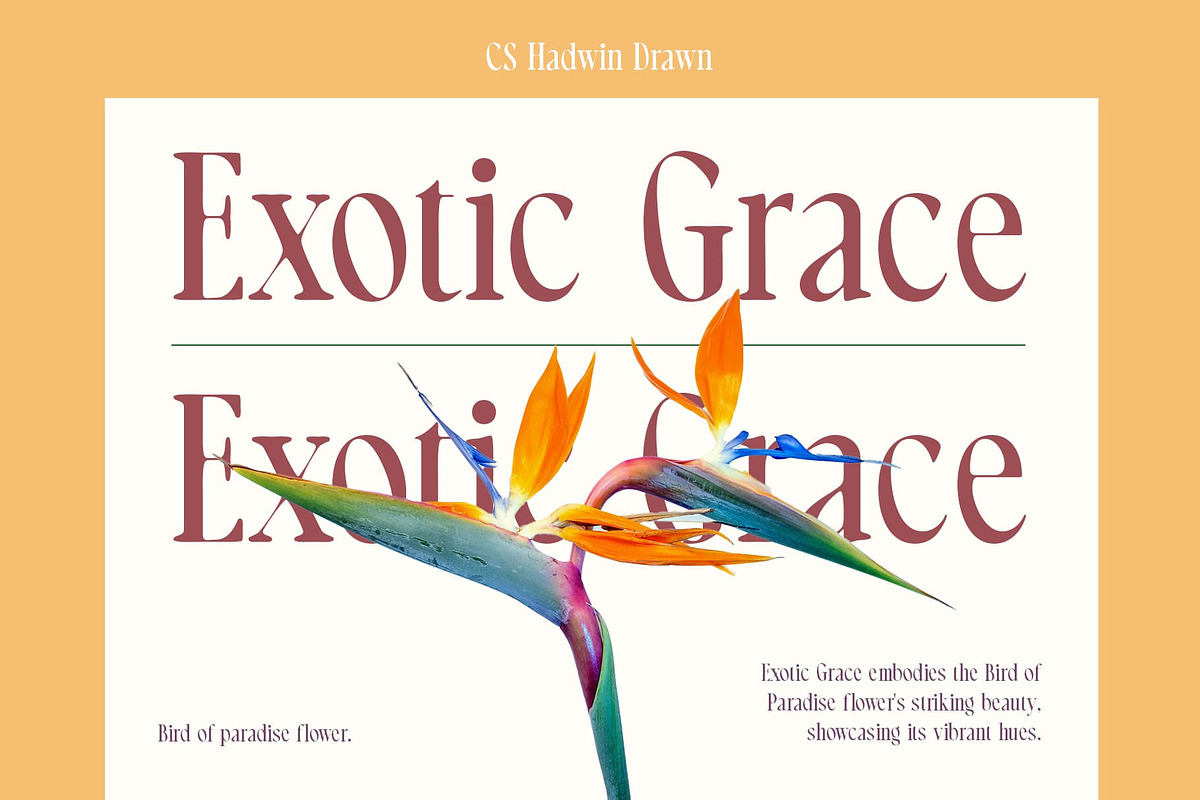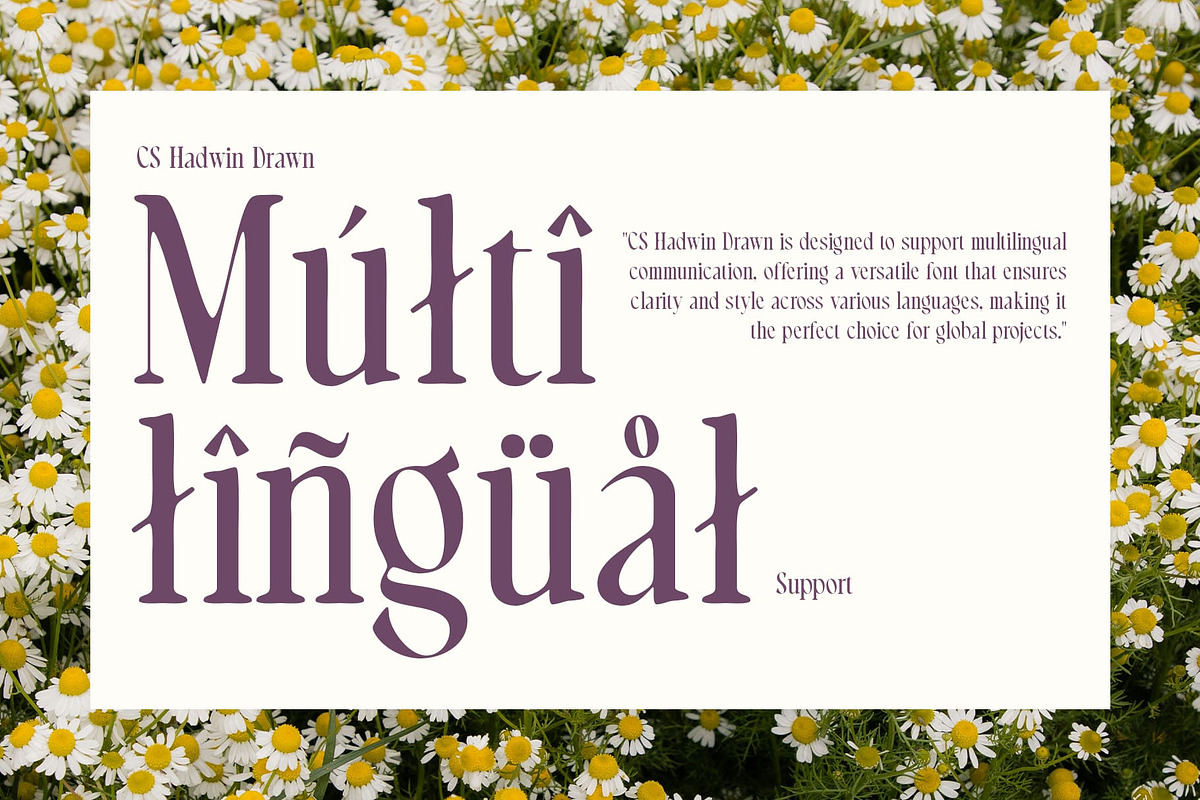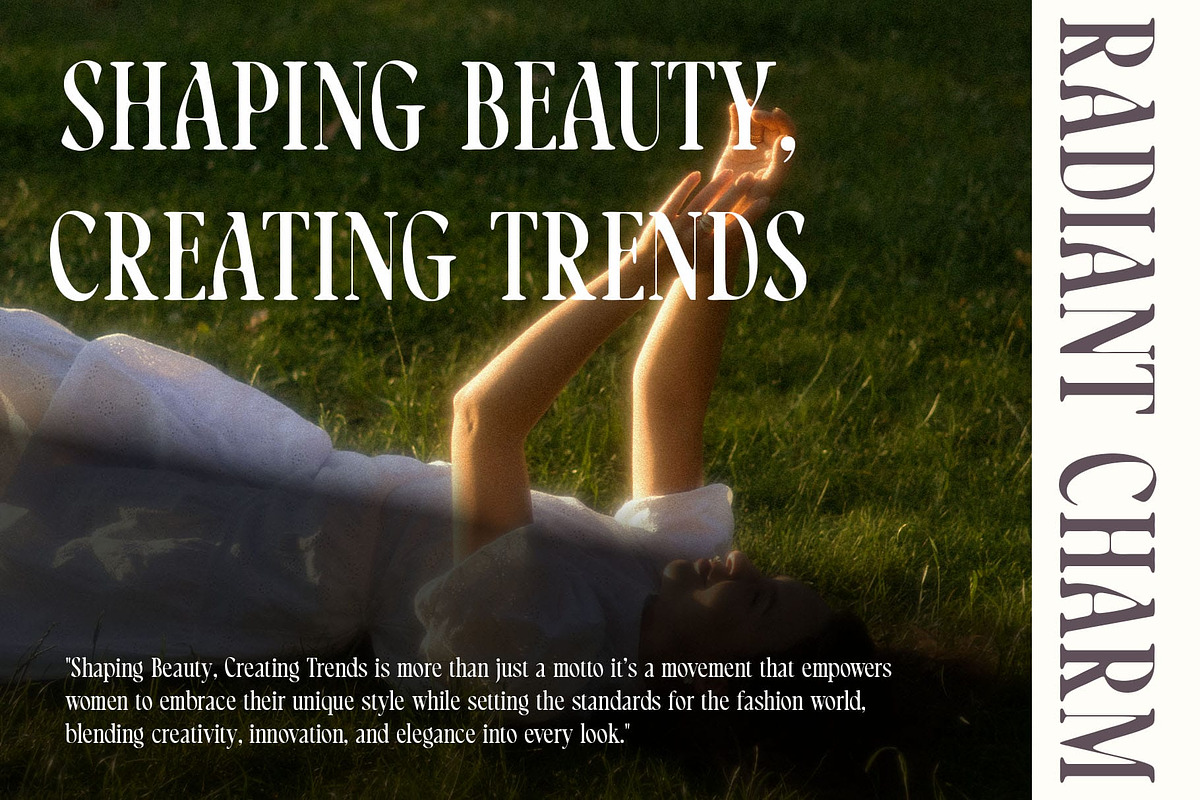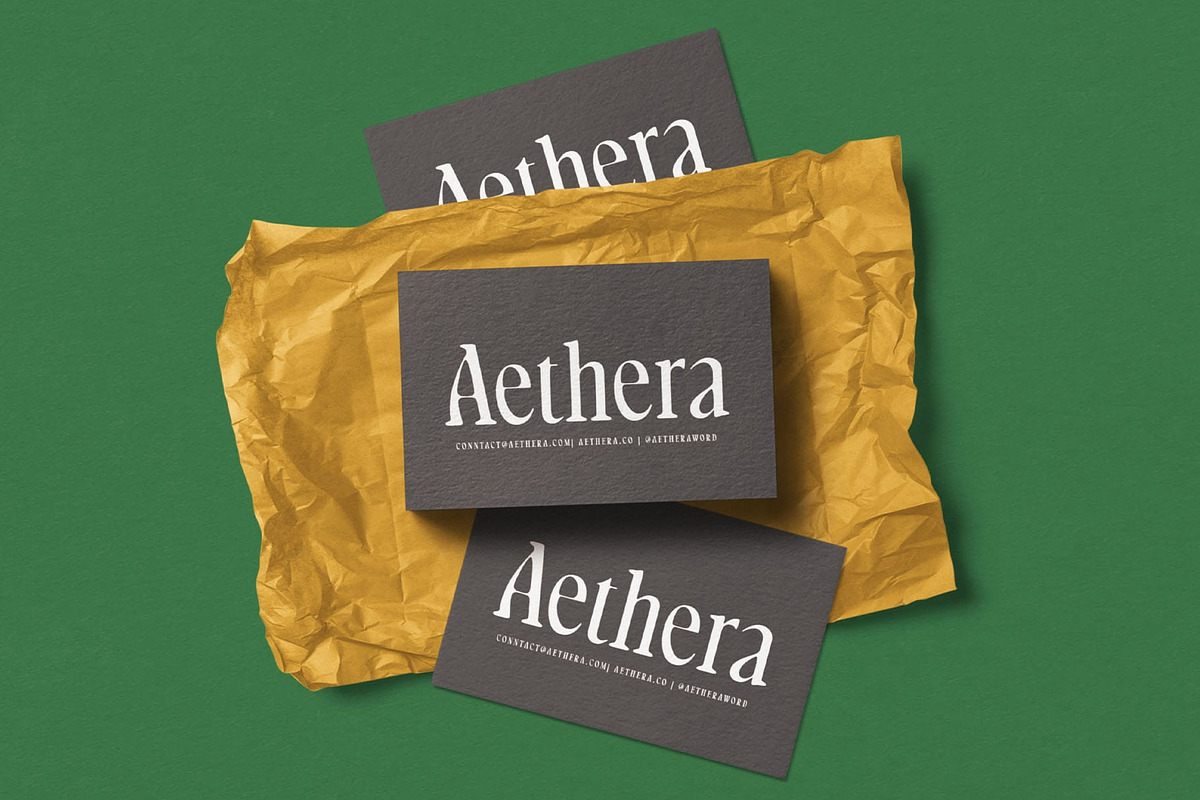
CS Hadwin Drawn
CS Hadwin Drawn – Elegant Hand-Drawn Serif Font
Timeless Elegance Meets Artistic Craftsmanship CS Hadwin Drawn is a classic serif font that beautifully merges traditional elegance with a unique, hand-drawn effect. Its refined letterforms exude sophistication and grace, while the hand-drawn details introduce a touch of artistry and individuality. This perfect blend of refinement and creativity makes it an ideal choice for upscale branding, formal invitations, and high-end designs that seek to evoke both timeless luxury and a personal, artistic flair.
Refined Sophistication with a Personal Touch With its elegant, well-structured serifs and smooth, flowing curves, this font brings a sense of sophistication to any project. The hand-drawn accents enhance the overall design, giving it a more organic and personalized feel. This combination of precision and creativity creates a font that captures attention with its unique, refined charm.
Perfect for Upscale and Formal Designs This drawn font is ideal for projects that require a sense of timeless luxury and elevated taste. The classic serif structure maintains a formal, professional tone, while the hand-drawn details bring a contemporary, creative edge to the font. This makes it a perfect fit for upscale branding, high-end invitations, or elegant marketing materials. It is also well-suited for editorial designs that aim to combine historical sophistication with modern artistry, ensuring your project stands out with both elegance and originality.